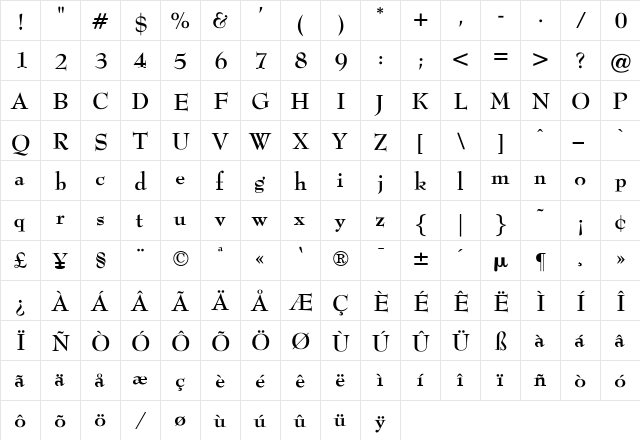
OPTIBenjieModern Regular Font Preview
OPTIBenjieModern Regular
OPTIBenjieModern Regular Font Details
Design Context for OPTIBenjieModern Typeface
OPTIBenjieModern is a composed and adaptable typeface that performs quietly and consistently across a wide range of design contexts.